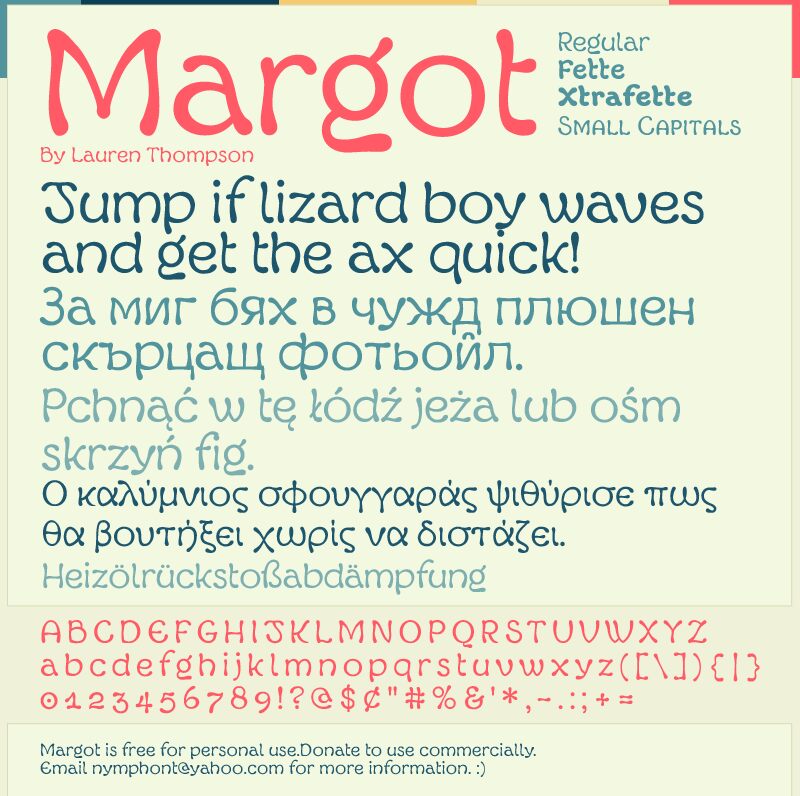
Margot Small Capitals by Lauren Thompson of Nymfont is a free old-school display font with softly rounded, hand-drawn forms. Its tall capitals mix slim upright strokes with broad curves, and the changing widths give each word an easy, bouncing pace. The irregular outlines feel pleasantly unpolished.
On packaging, the lettering can turn a product name into a warm, slightly retro label, particularly for sweets, toys, or casual food brands. The same rounded shapes suit children's book covers, event posters, playful merchandise, and cheerful school-fair graphics, linking those uses through a friendly sign-painter quality rather than a polished geometric finish.
Corrections and additions have been made to the Cyrillic character set. Margot Fette has been renamed Margot Bold.